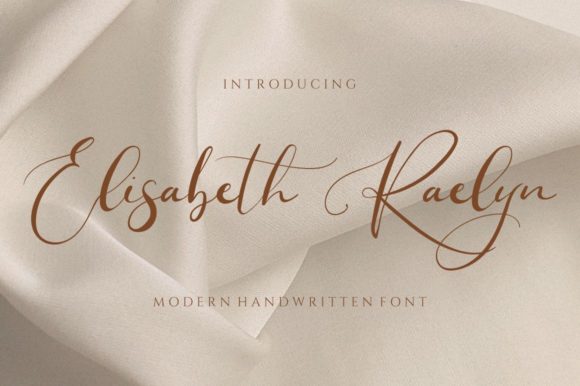
Immerse yourself in the world of Elisabeth Raelyn Font, a captivating light handwritten font that exudes elegance and grace. This masterpiece crafted by Reyrey Blue is not just a font; it's an artistic journey that will transform your design projects into breathtaking creations.
Elisabeth Raelyn Font captivates with its unique strokes, delicate curves, and the perfect blend of finesse and boldness. Its romantic and playful personality makes it a perfect choice for wedding videos, adding a touch of magic to your special day. The font dances across the screen, evoking a symphony of emotions that will leave your audience spellbound.
With Elisabeth Raelyn Font, you can express your creativity like never before. Its effortless flow and stunning impact will elevate your designs, making them stand out from the crowd. Let your imagination soar as you craft stunning logos, enchanting invitations, heartfelt greeting cards, and captivating social media posts.
The versatility of Elisabeth Raelyn Font knows no bounds. Its beauty shines through in branding projects, creating a lasting impression that resonates with your audience. Whether you're designing labels, packaging, or website elements, Elisabeth Raelyn Font will add a touch of sophistication that will make your designs shine.
But Elisabeth Raelyn Font is more than just a beautiful face. It's PUA-encoded, granting you access to a treasure trove of amazing glyphs and ligatures with utmost ease. Unleash your creativity and explore endless possibilities as you effortlessly add intricate details and embellishments to your designs.